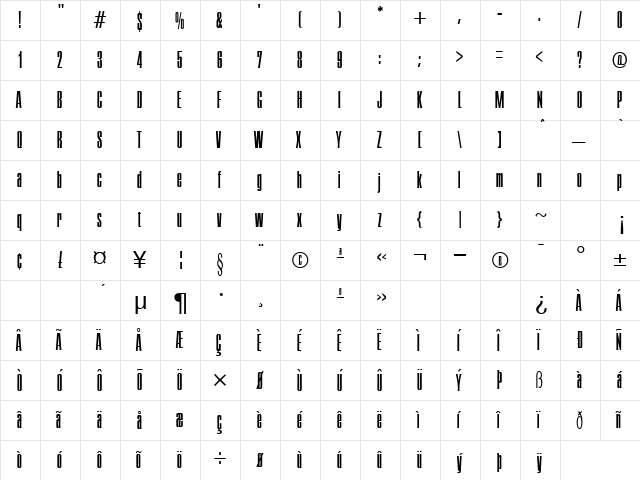
Executive Regular
Design Context for Executive Typeface
Executive offers clean, dependable letterforms without strong stylistic allegiance, making it a practical choice for designers who need flexibility.